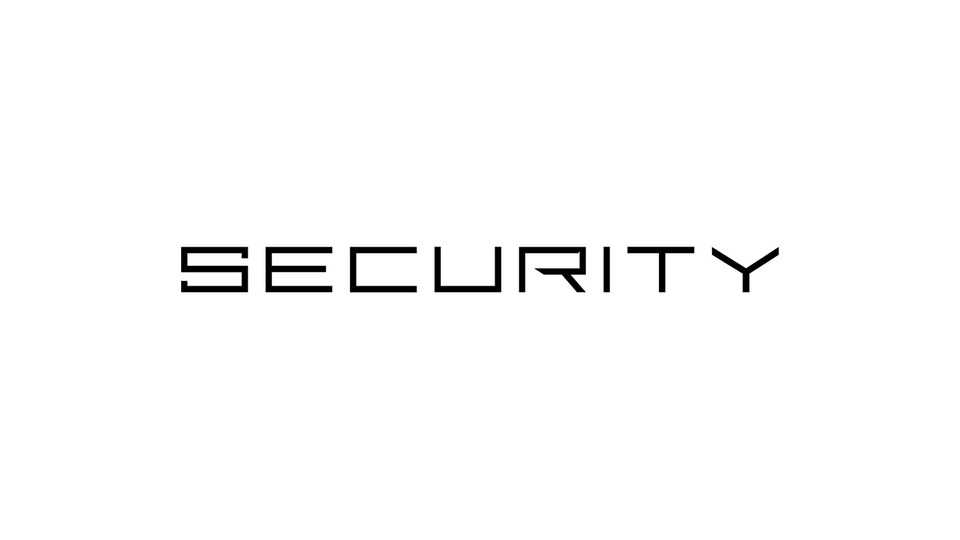
Download Tsing font, a science fiction relatively monospaced typeface composed of equal-sized squares, creating a fascinating visual experience for the font.